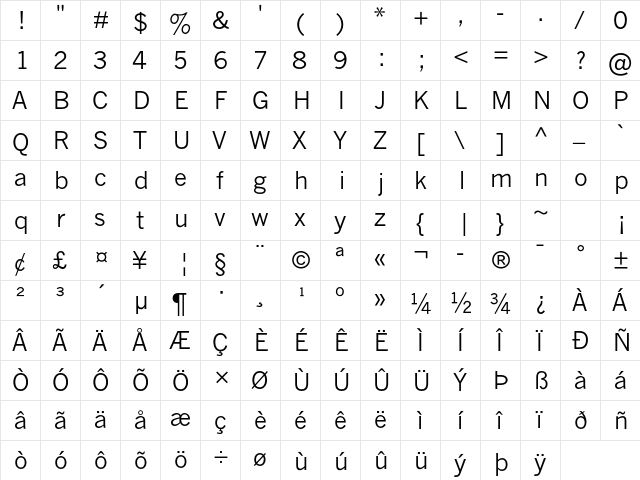
News Gothic MT Std Regular
Design Context for News Gothic MT Std Typeface
News Gothic MT Std has the quiet confidence of well-executed sans-serif typography: versatile, unobtrusive, and dependable at any size.
Font Pairing: Works well alongside a characterful serif or display font that can carry the expressive load while News Gothic MT Std handles the functional copy.
Pro Tip: Use News Gothic MT Std for UI labels, navigation, and short-form body copy where clean legibility is the priority.